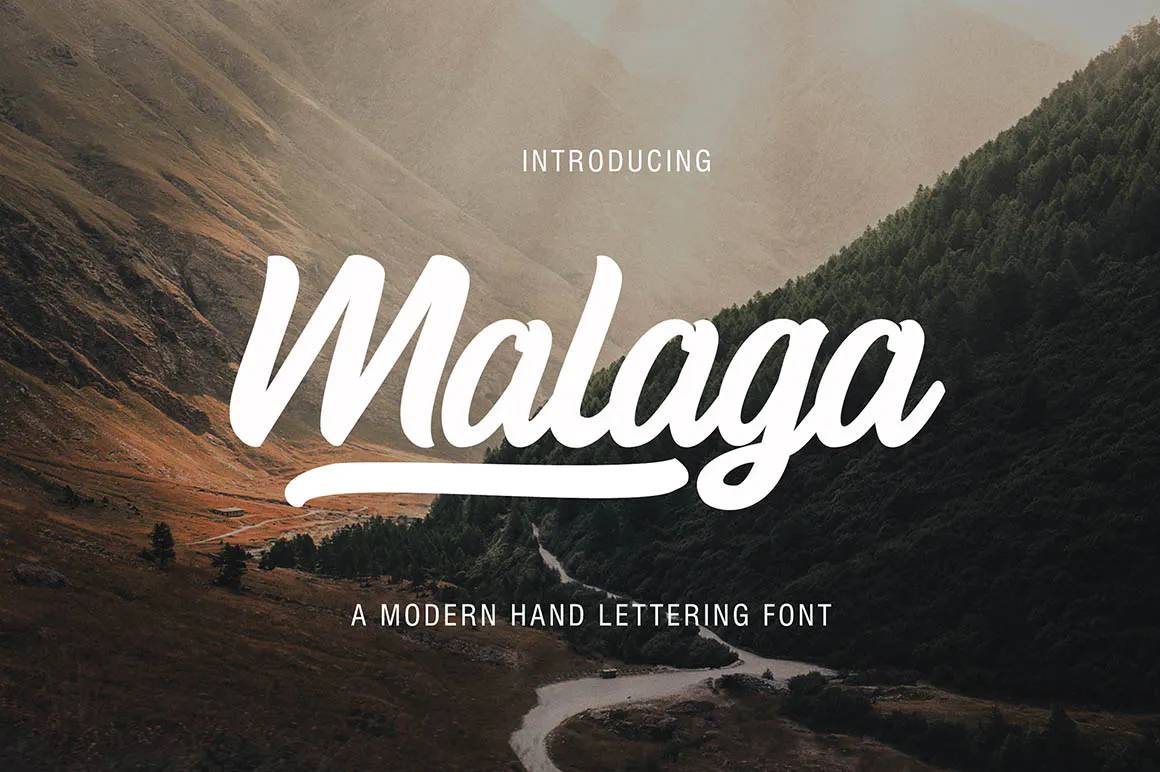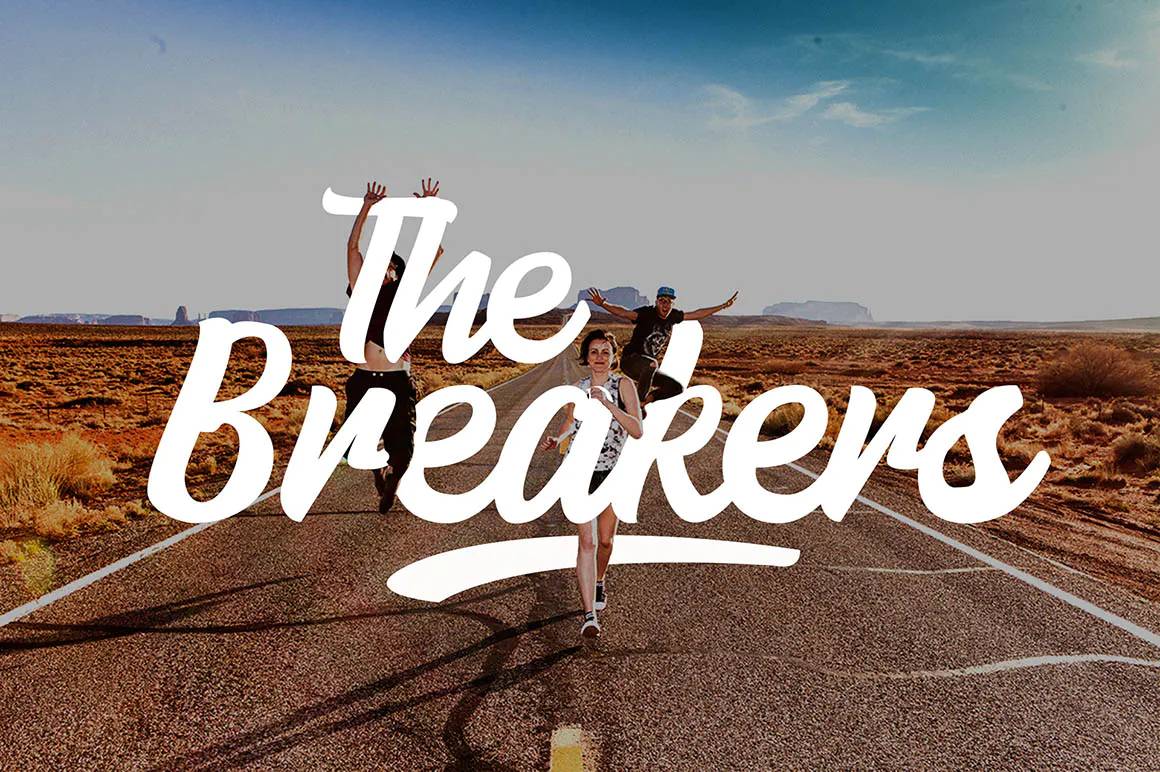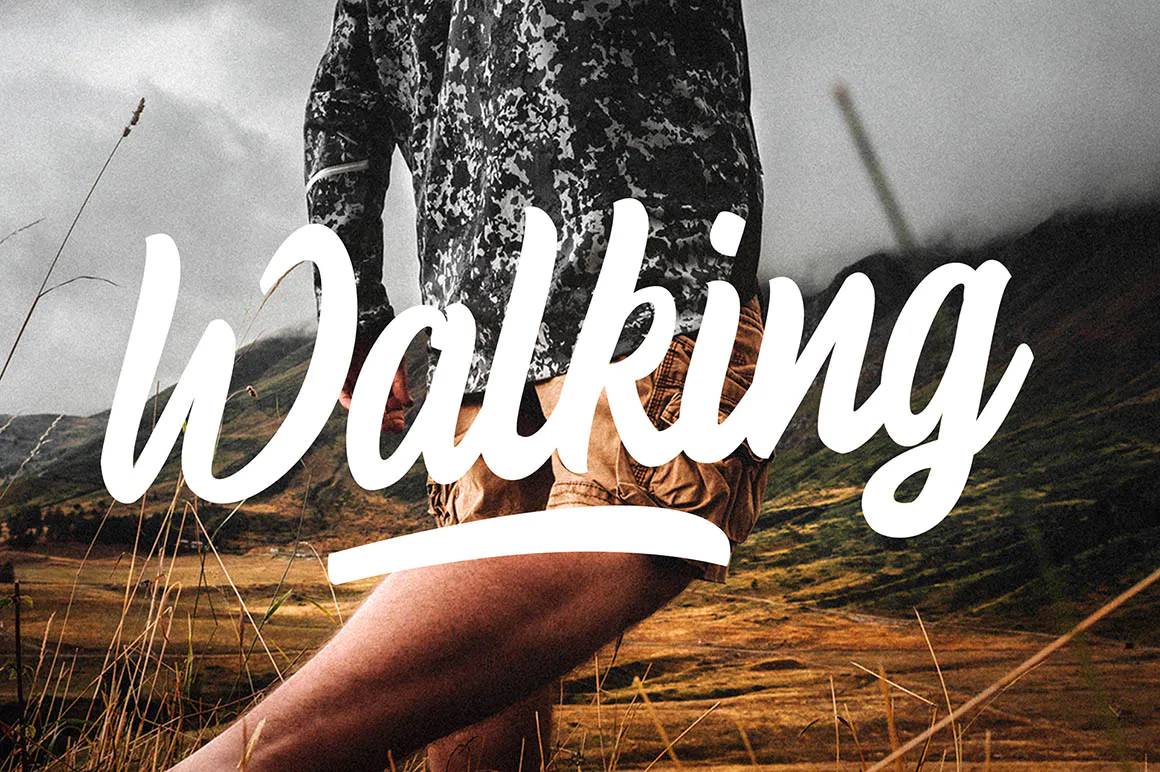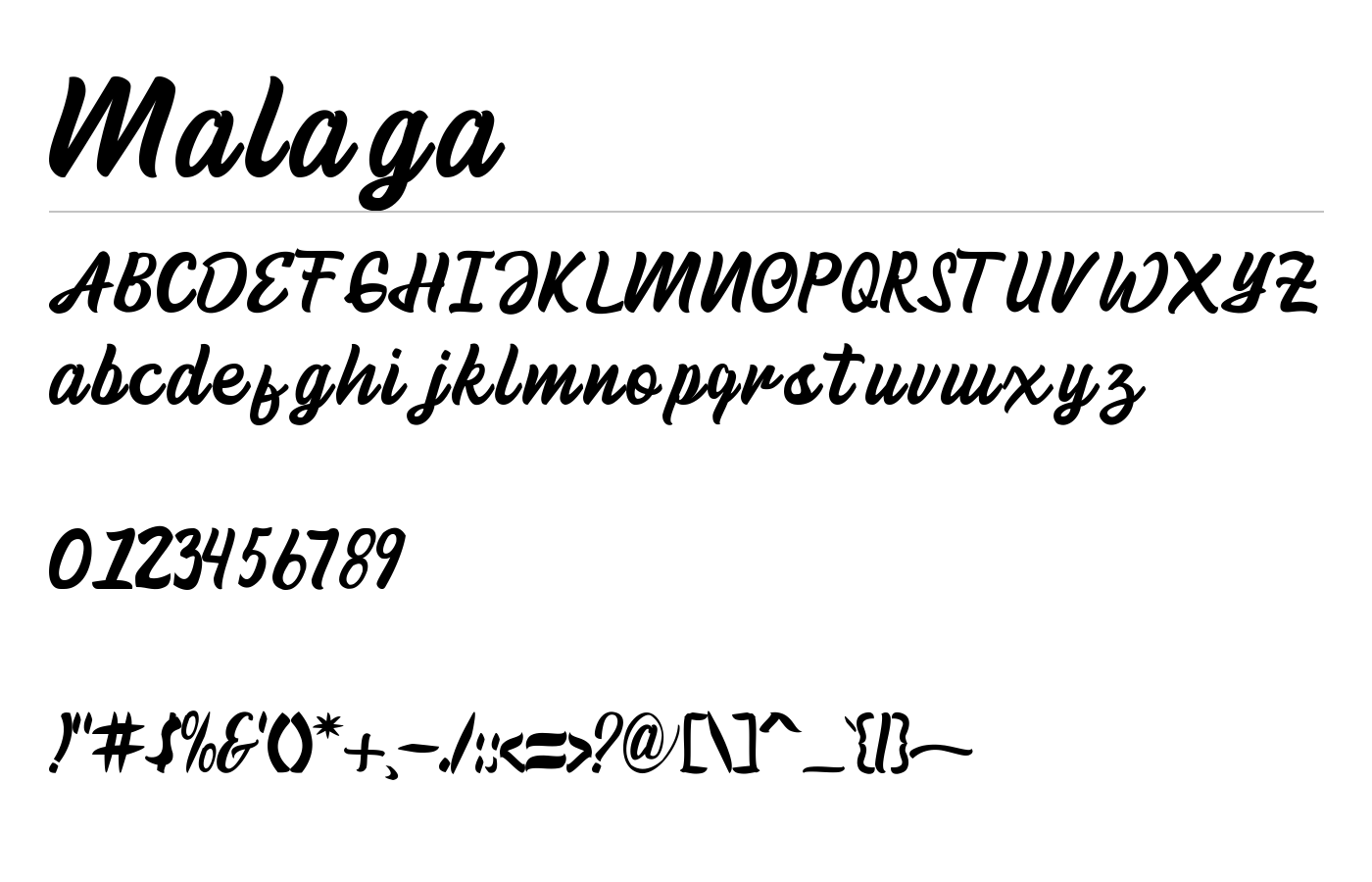
Malaga Modern Script is a lively, bold script font with smooth, rounded strokes that give it a friendly and approachable feel. Its clear, slightly condensed letterforms with moderate contrast make it ideal for branding, packaging, and headlines where a modern yet elegant handwritten touch is desired. This typeface works well for fashion, lifestyle, and creative projects that want to convey personality and warmth.
Malaga Modern Script Typeface
About Malaga Modern Script Typeface